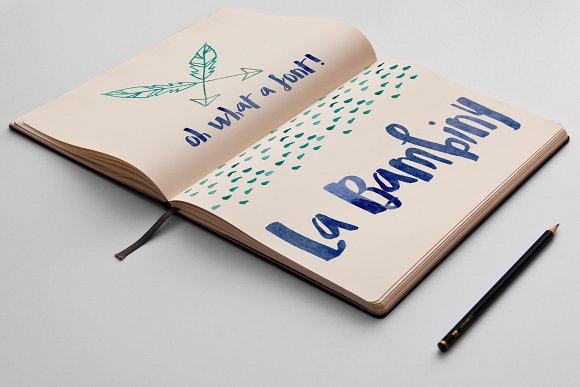
Journey into the world of elegance and grace with La Bambiny Font, a captivating script font that will leave you spellbound. This exquisite creation from Creativeqube Design is a testament to the power of artistry, seamlessly blending the charm of tradition with a modern twist. La Bambiny is more than just a font; it's an experience that will elevate your designs to new heights of sophistication.
Indulge in the beauty of La Bambiny's meticulously crafted characters, each stroke a testament to the passion and dedication of its creator. Its delicate curves and graceful flourishes evoke a sense of timeless elegance, reminiscent of classic handwritten letters. Whether you're designing wedding invitations, creating logos, or crafting social media graphics, La Bambiny will add an undeniable touch of refinement to your work.
Let your imagination soar as you explore the endless possibilities of La Bambiny. Its versatility knows no bounds, effortlessly adapting to a wide range of design styles and projects. From delicate watercolors to bold and modern layouts, La Bambiny seamlessly blends in, enhancing your designs with its timeless charm.
Unleash your creativity and embrace the allure of La Bambiny. Its enchanting appeal will captivate your audience, leaving a lasting impression that lingers long after they've encountered your designs. Whether you're a seasoned designer or just starting your creative journey, La Bambiny is the perfect companion, guiding you towards design excellence.